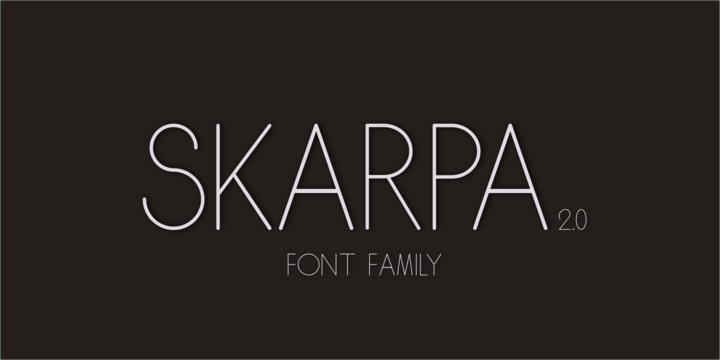
Skarpa 2.0 Font
This is a pro upgrade of my very first font I have ever released back in July 2011. My inspiration for this font were Roman Capitals, which I have initially designed as hairline – monotone, which gave an impression of high-end fashion look.
Encouraged by the success of my initial design I have decided to redo / facelift my 2011 design. The fonts available here are revised throughout, also new glyphs/letters are added (808 glyphs in total) so you can use the font(s) in a majority of languages where latin script is present.
The family of Skarpa 2.0 fonts contains 12 files – you find there three weights, three types – both in regular & italic style.